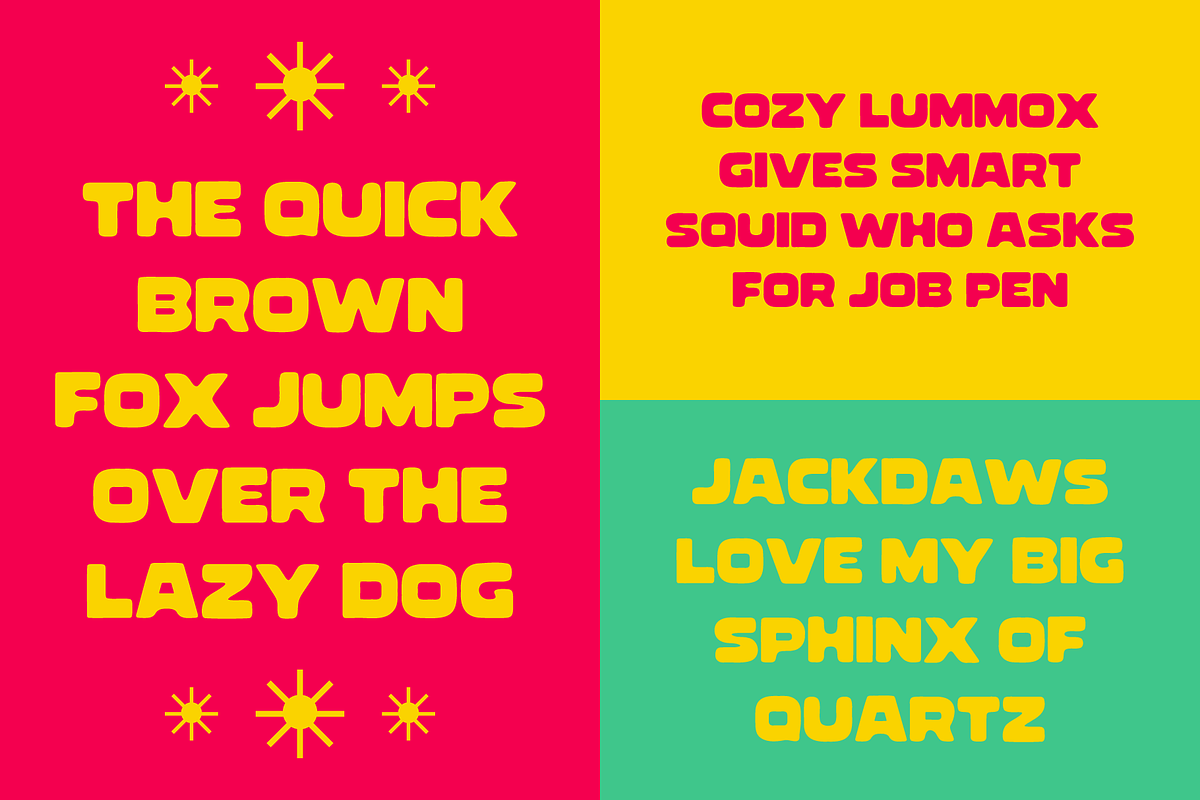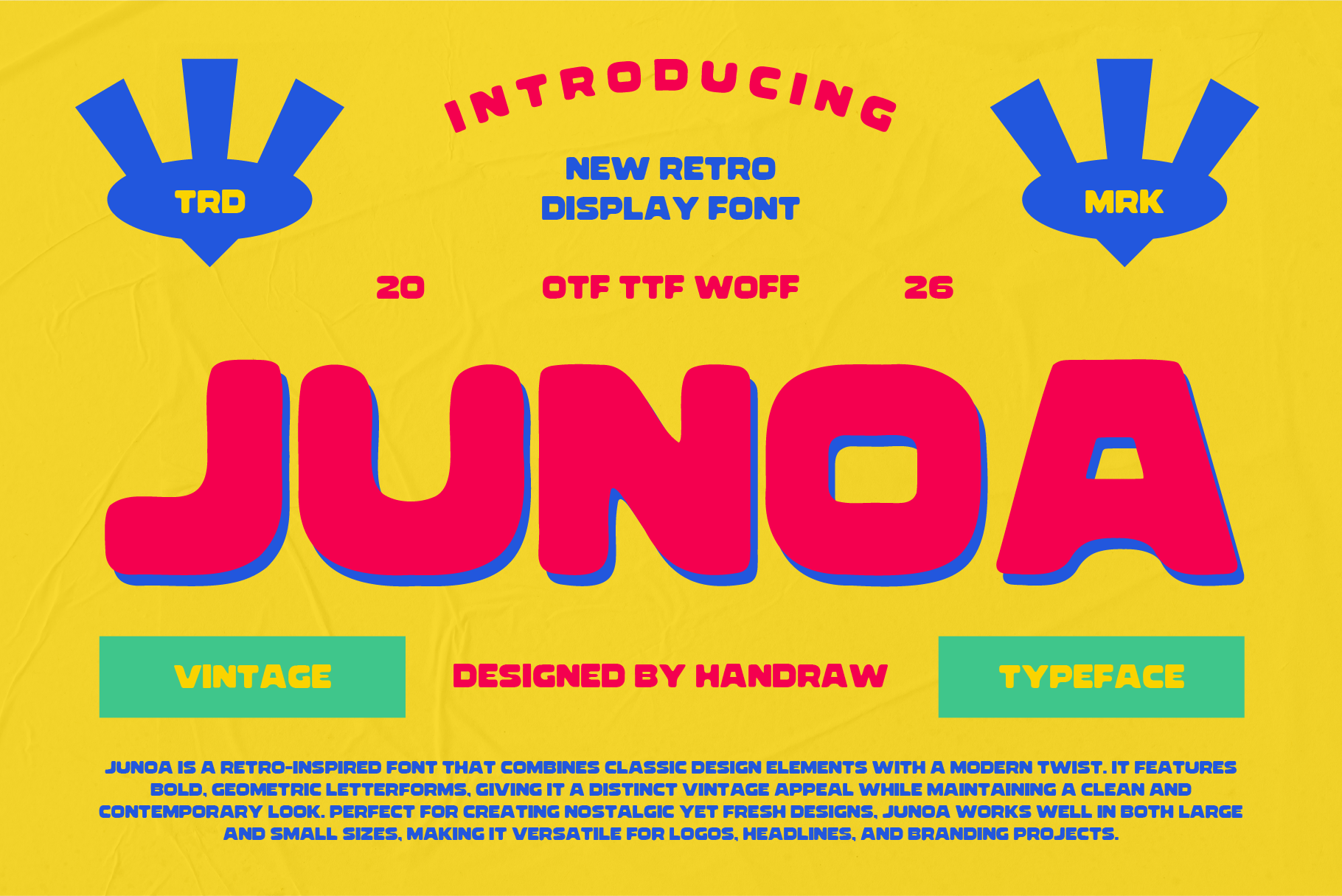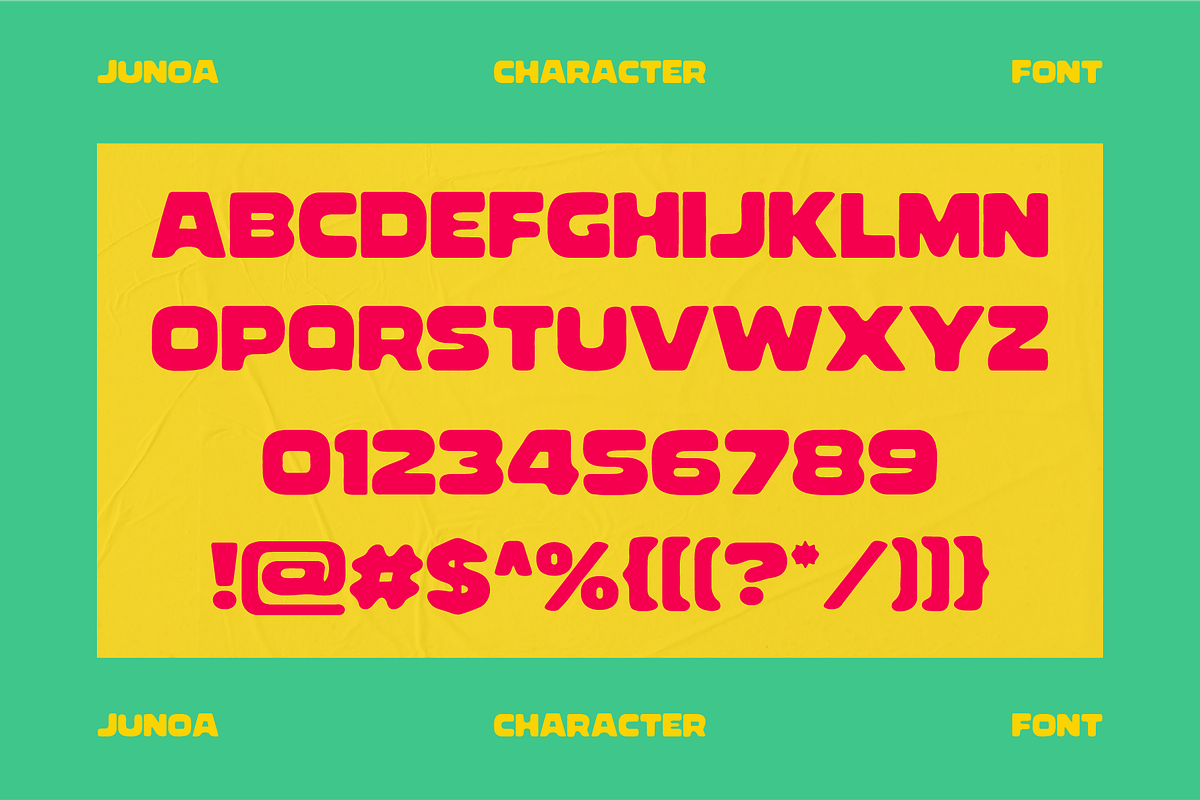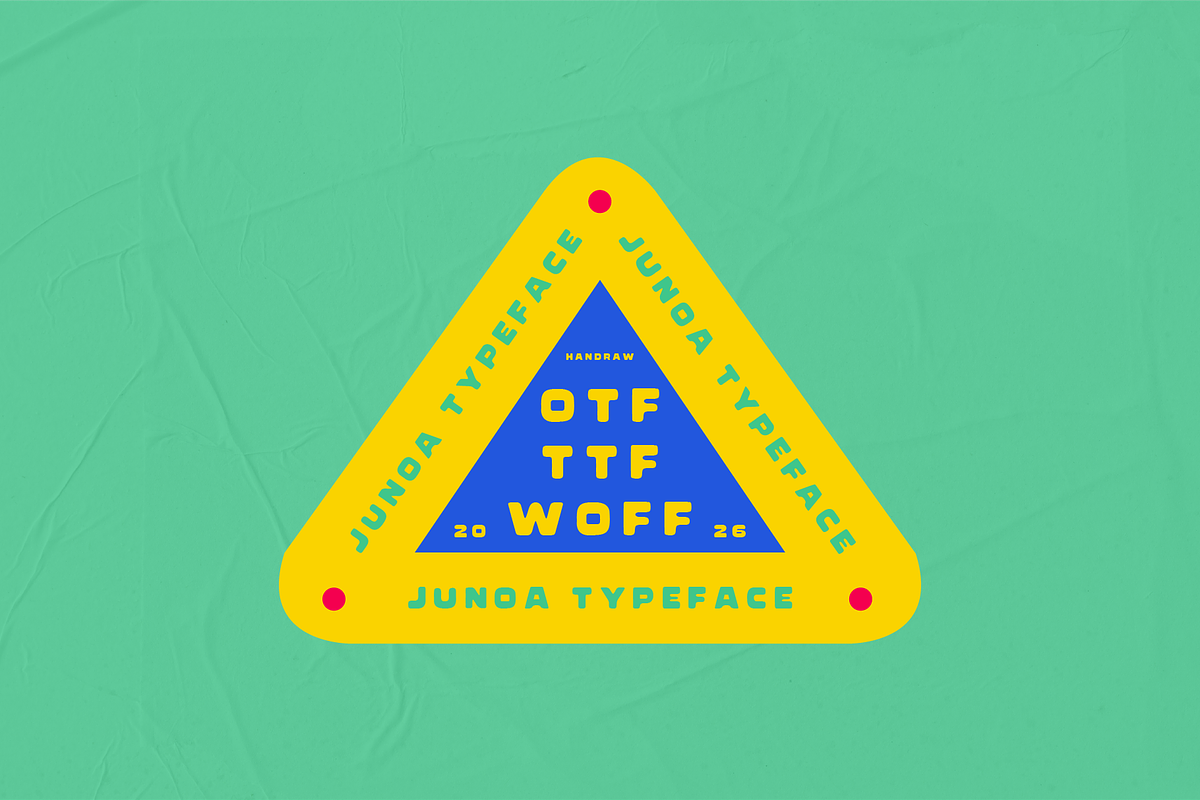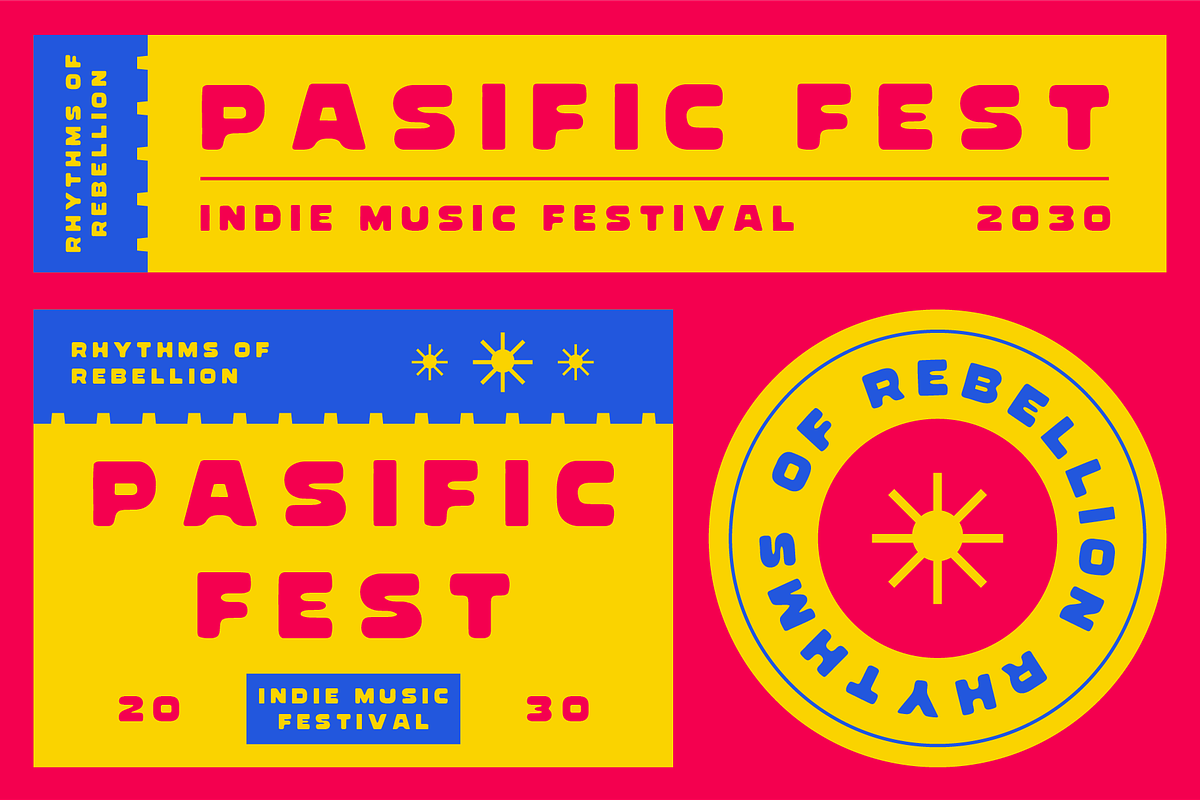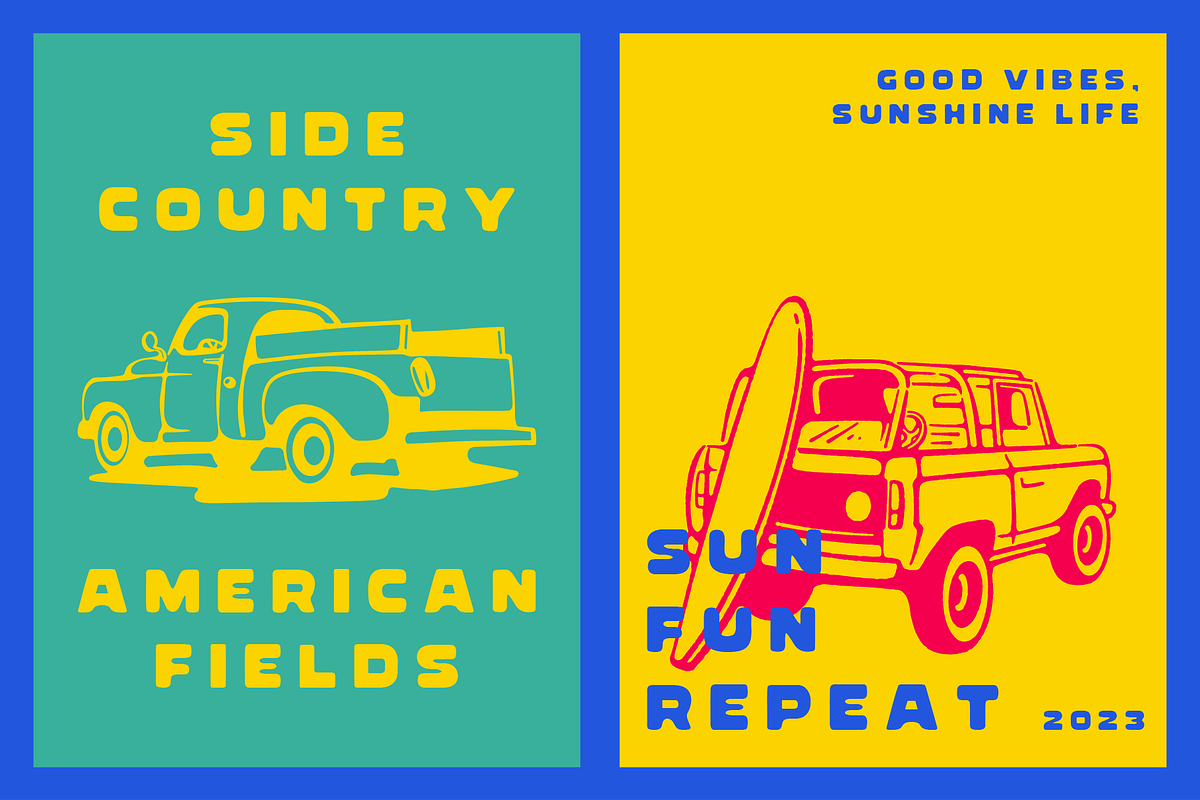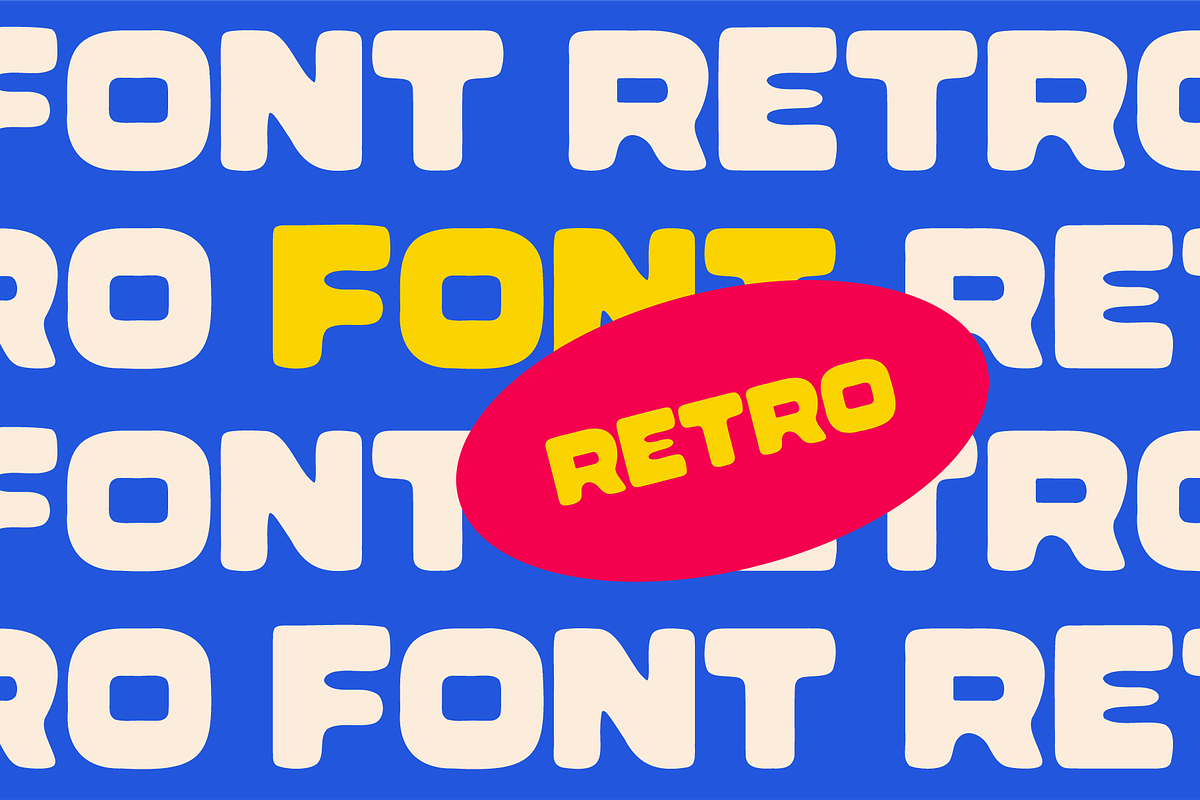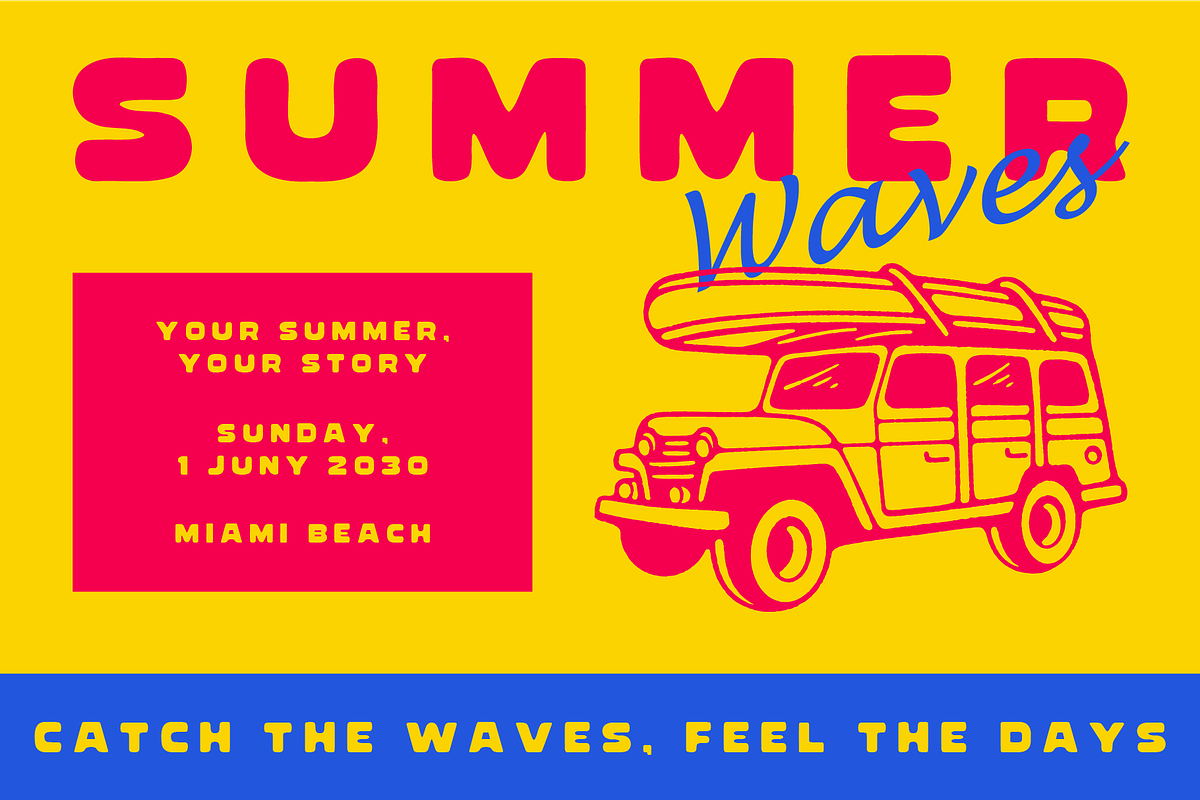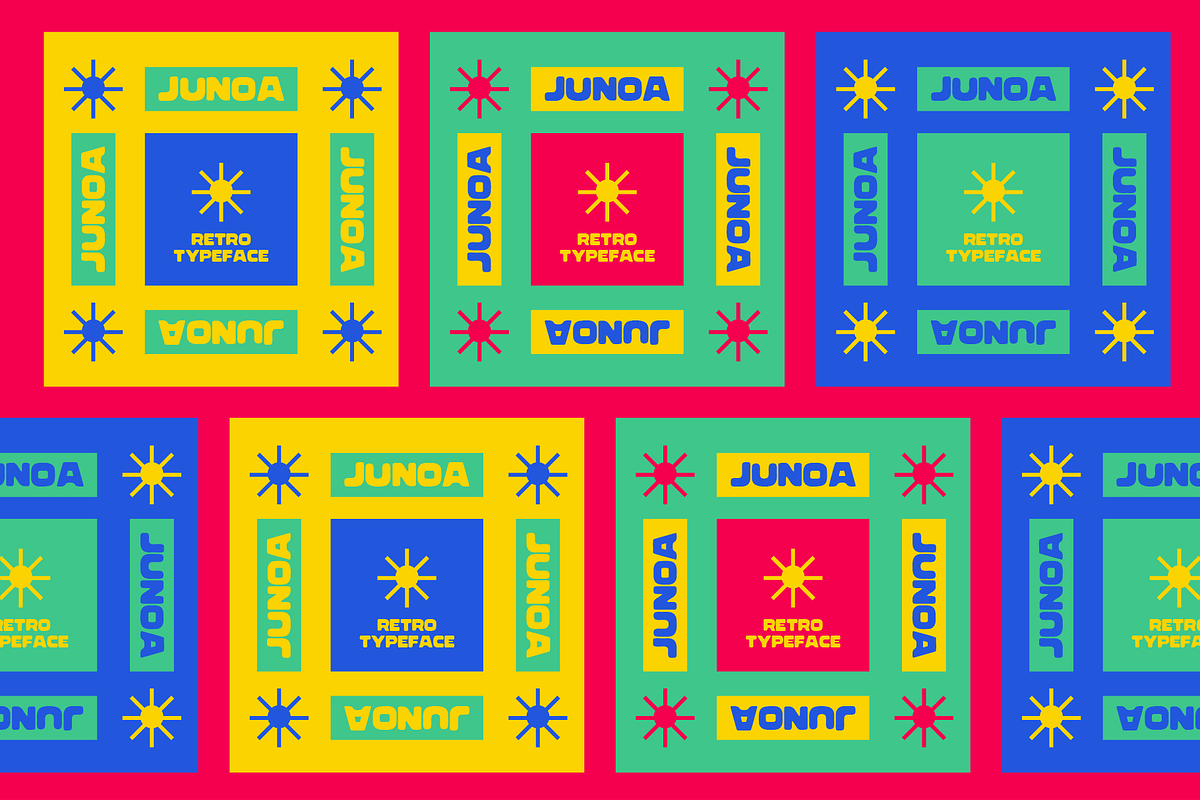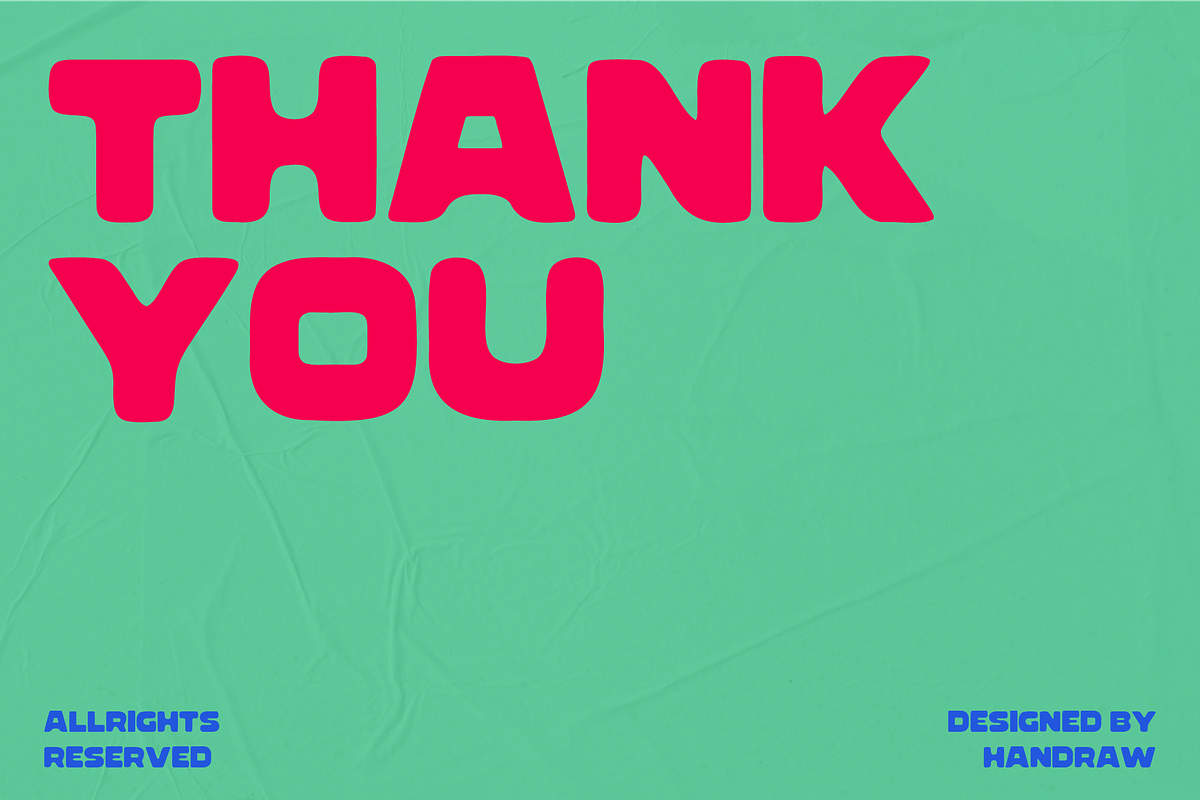
Junoa - Retro Display Font
Junoa is a retro-inspired font that combines classic design elements with a modern twist. It features bold, geometric letterforms, giving it a distinct vintage appeal while maintaining a clean and contemporary look. Perfect for creating nostalgic yet fresh designs, Junoa works well in both large and small sizes, making it versatile for logos, headlines, and branding projects.